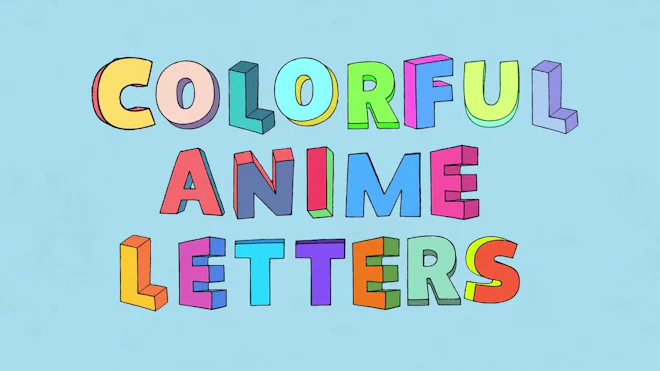
This stock motion graphic video pack includes 36 colorful anime letters and numbers on a transparent alpha channel in a seamless loop. Resolution is 2160x2160.